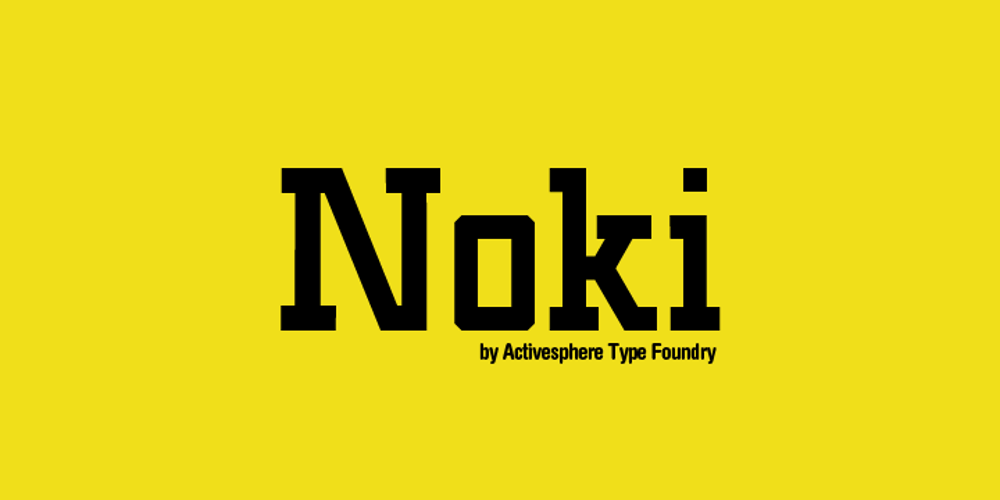
Noki Font Family was designed by Ronnie Cruz and published by ActiveSphere. Noki contains 5 styles and family package options. The new release is called Noki. A font family Ideal for flyers, label, logos, magazine, product branding, corporate branding, signage, posters and certainly in advertising. Check it out !